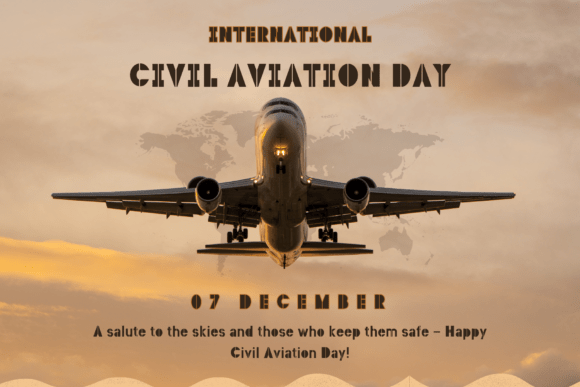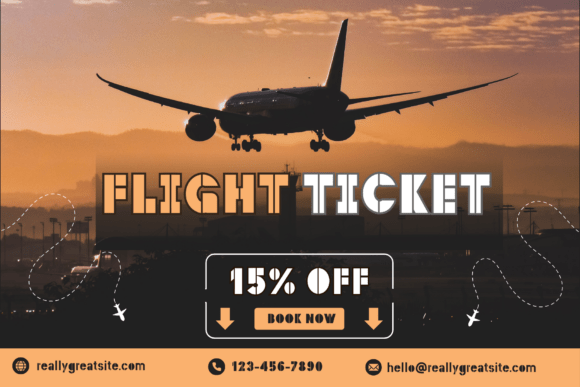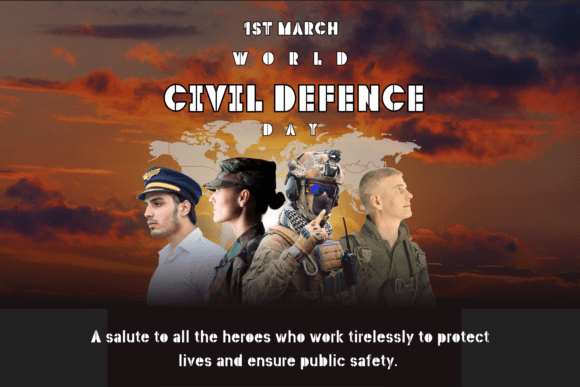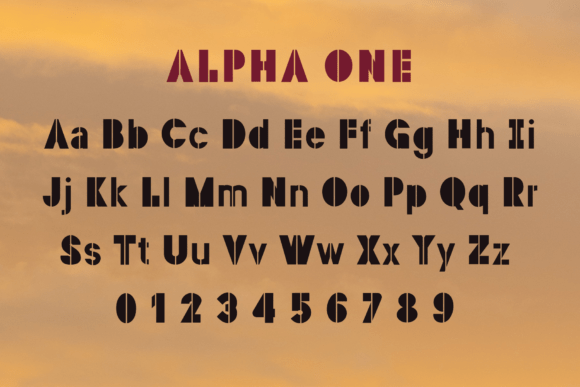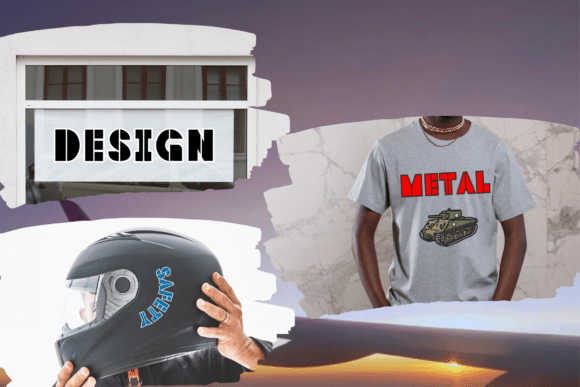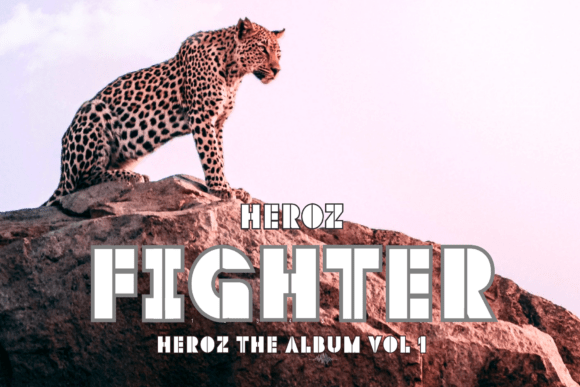
Discover the Quirky Charm of Alpha One Font: Elevate Your Designs with this Unique Display Font
Are you tired of using the same old fonts in your designs? Look no further than Alpha One Font, a unique and interesting display font that’s sure to add a touch of personality to your projects. A little bit quirky, this font looks incredibly adept on a wide variety of contexts, making it a versatile addition to any designer’s toolkit.
The Characteristics of Alpha One Font
Alpha One Font is a display font that stands out from the crowd with its distinctive and eye-catching design. Its quirky charm makes it perfect for designs that require a bit of personality, from bold headlines to creative packaging. The font’s unique features include:
• Unique letterforms: Each letter in Alpha One Font has been carefully crafted to create a distinctive and memorable look.
• Quirky charm: The font’s quirky design makes it perfect for adding a touch of personality to your designs.
• Versatility: Alpha One Font can be used in a wide range of contexts, from digital designs to print materials.
What Makes Alpha One Font So Special?
So, what sets Alpha One Font apart from other display fonts on the market? Here are just a few reasons why this font is a cut above the rest:
• Hand-crafted design: Alpha One Font has been carefully hand-crafted to ensure that every letterform is unique and visually appealing.
• High-quality rendering: The font is designed to render beautifully at a wide range of sizes, making it perfect for both digital and print applications.
How to Use Alpha One Font in Your Designs
Alpha One Font is a versatile display font that can be used in a wide range of design contexts. Here are just a few ideas to get you started:
• Headlines and titles: Use Alpha One Font to add a touch of personality to your headlines and titles.
• Branding and packaging: The font’s quirky design makes it perfect for branding and packaging projects that require a bit of flair.
• Digital designs: Alpha One Font can be used in a wide range of digital designs, from social media graphics to website headers.
Tips and Tricks for Getting the Most Out of Alpha One Font
Here are just a few tips and tricks for getting the most out of Alpha One Font:
• Experiment with different sizes: Alpha One Font looks great at a wide range of sizes, so don’t be afraid to experiment and find the perfect size for your design.
• Pair it with other fonts: Alpha One Font can be paired with a wide range of other fonts to create a unique and visually appealing design.
• Use it sparingly: Because of its bold and eye-catching design, it’s best to use Alpha One Font sparingly to avoid overwhelming your design.
Alpha One Font is a unique and interesting display font that’s sure to add a touch of personality to your designs. With its quirky charm and versatility, this font is perfect for designers and crafters who want to create bold and eye-catching designs. Whether you’re working on a digital project or a print design, Alpha One Font is a great choice.